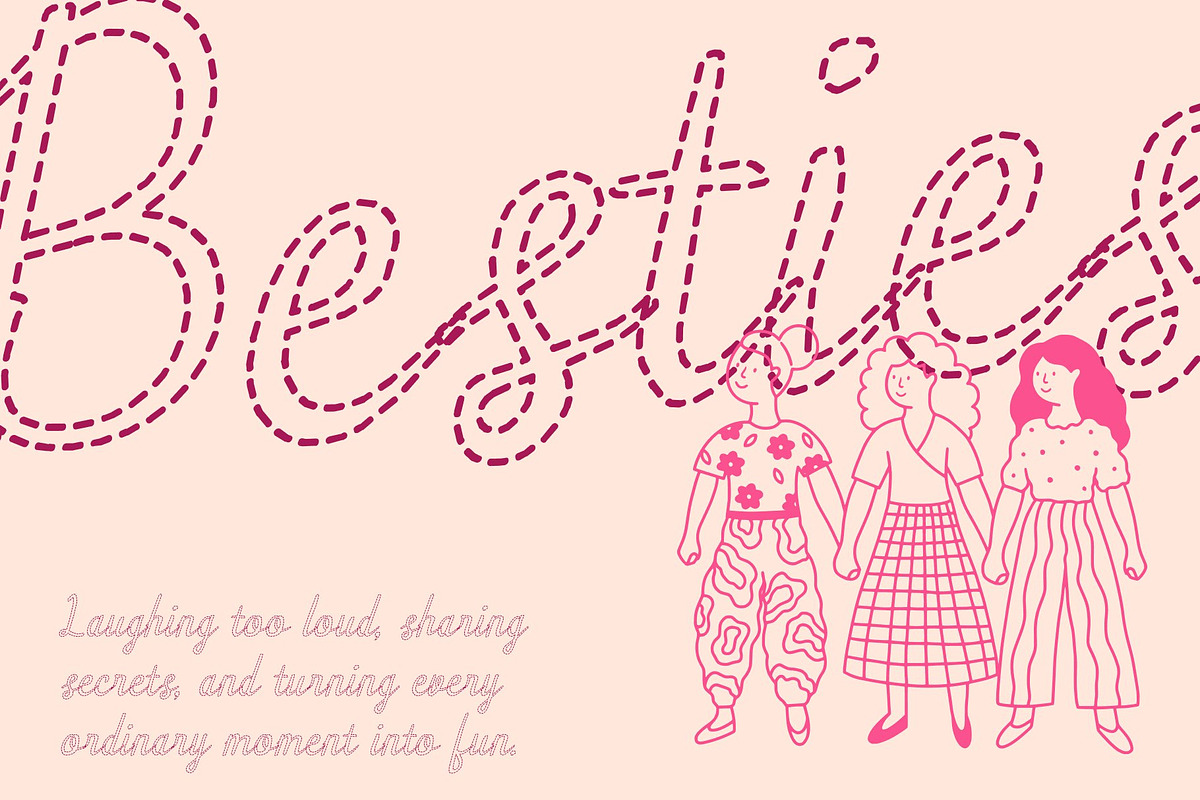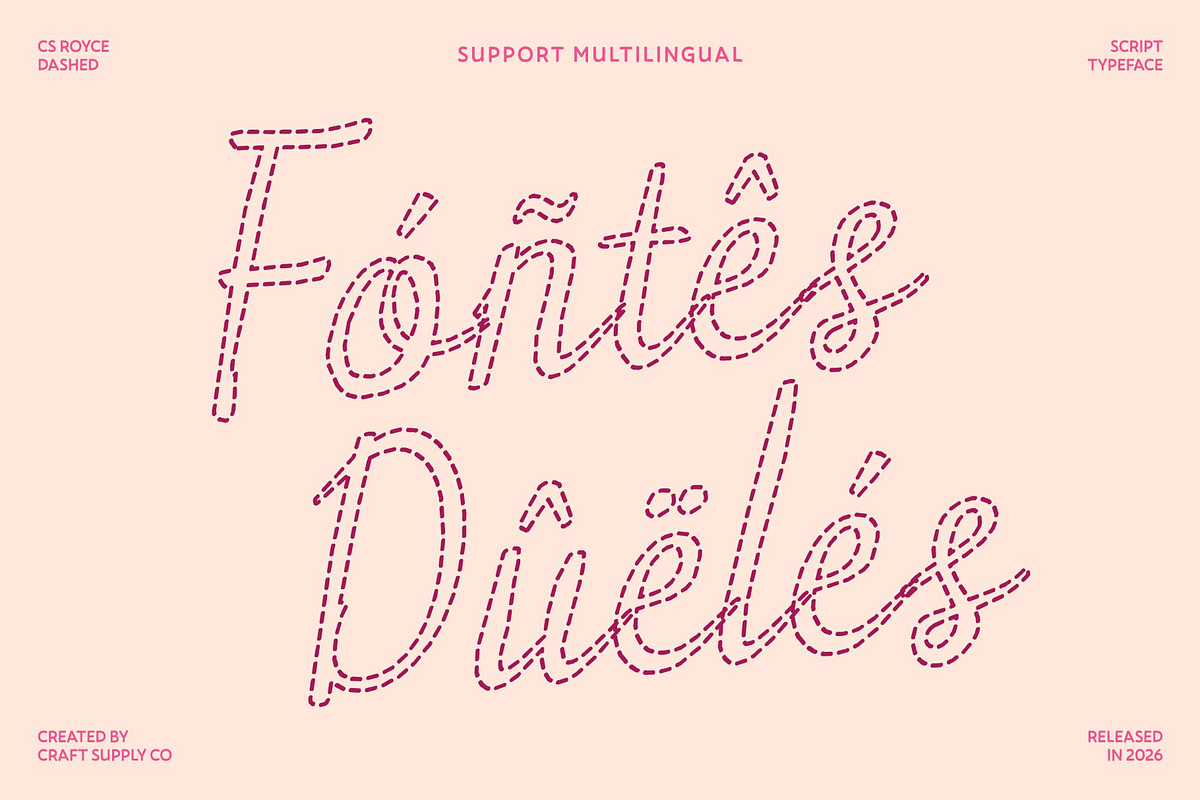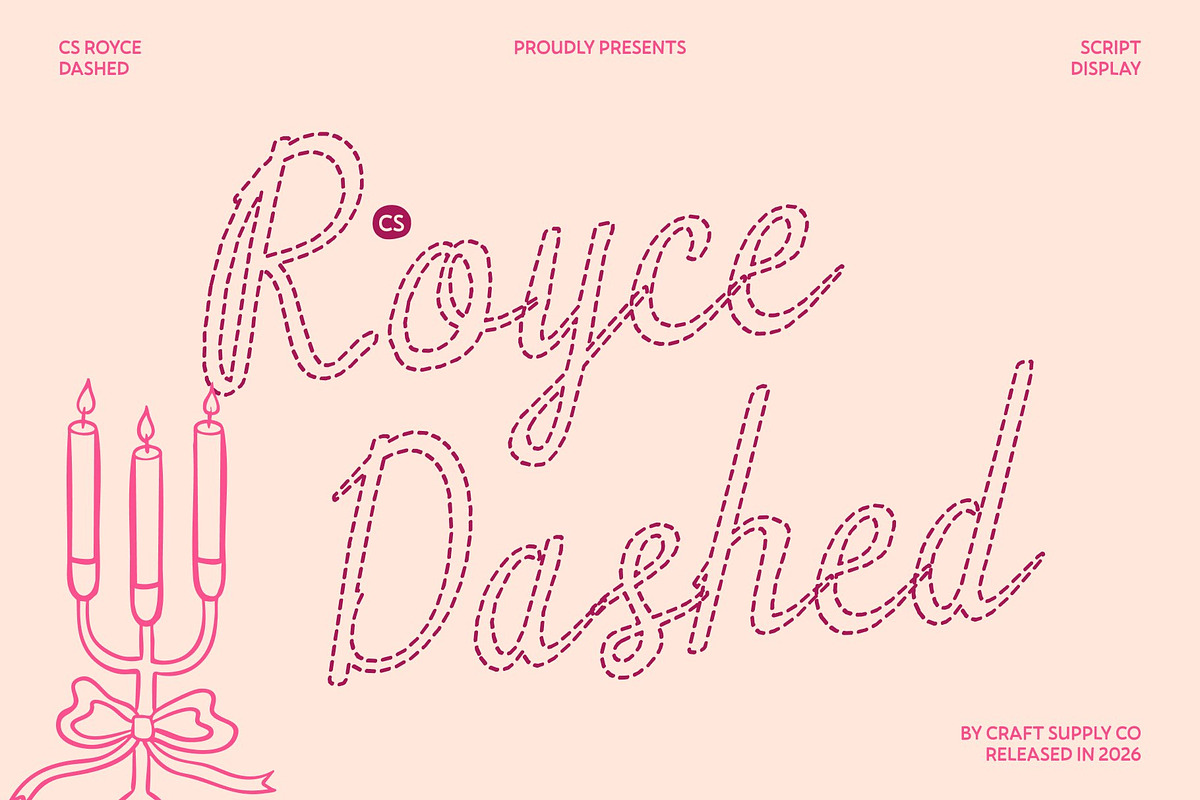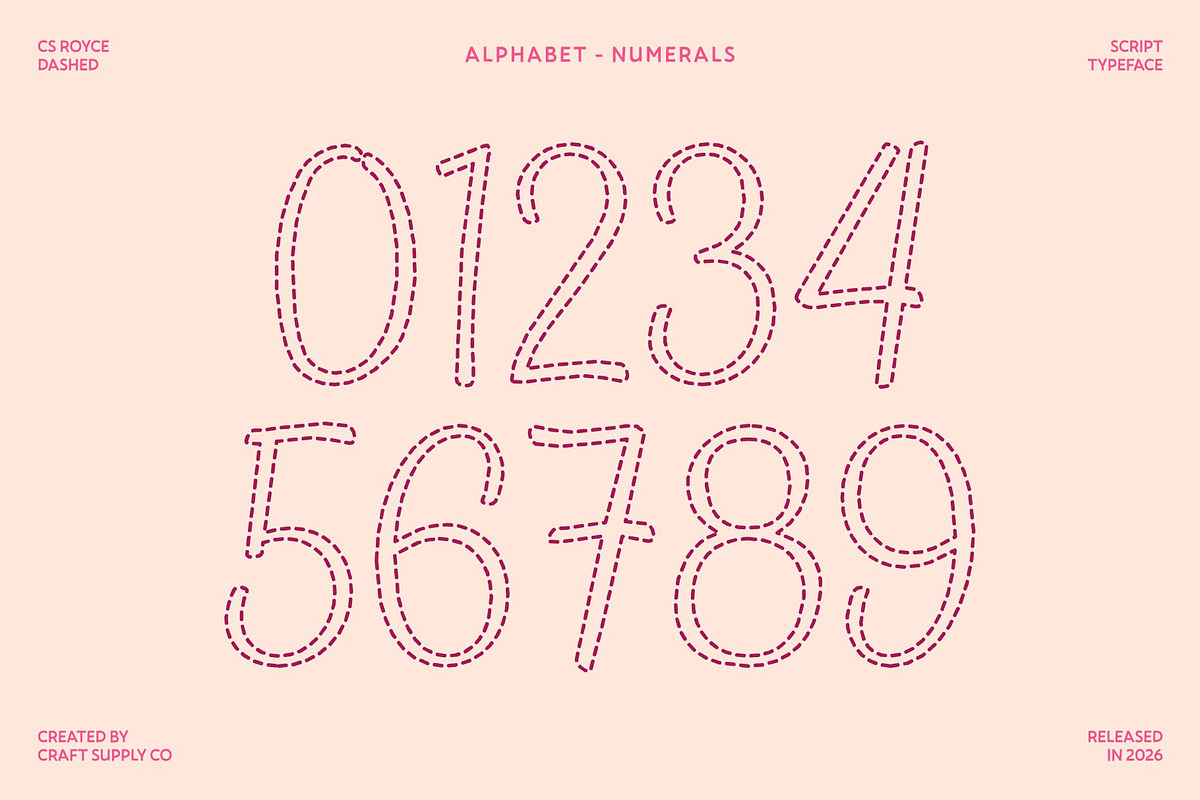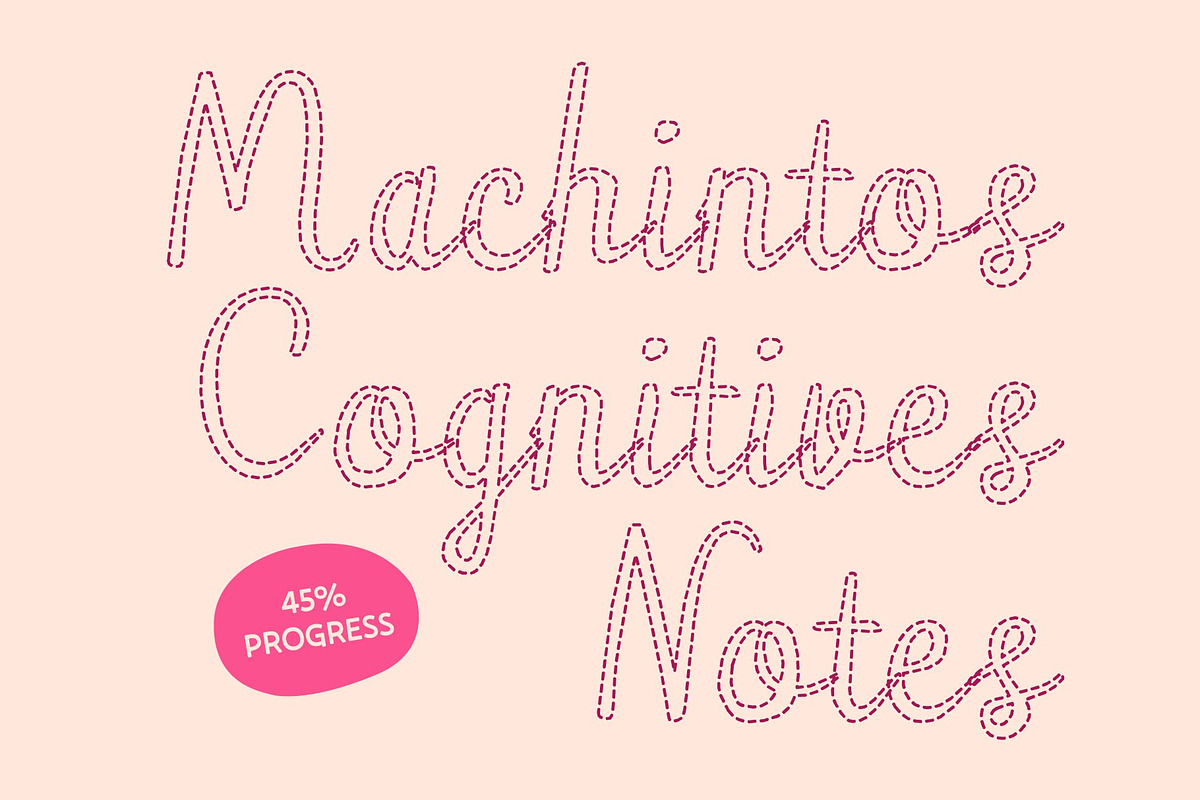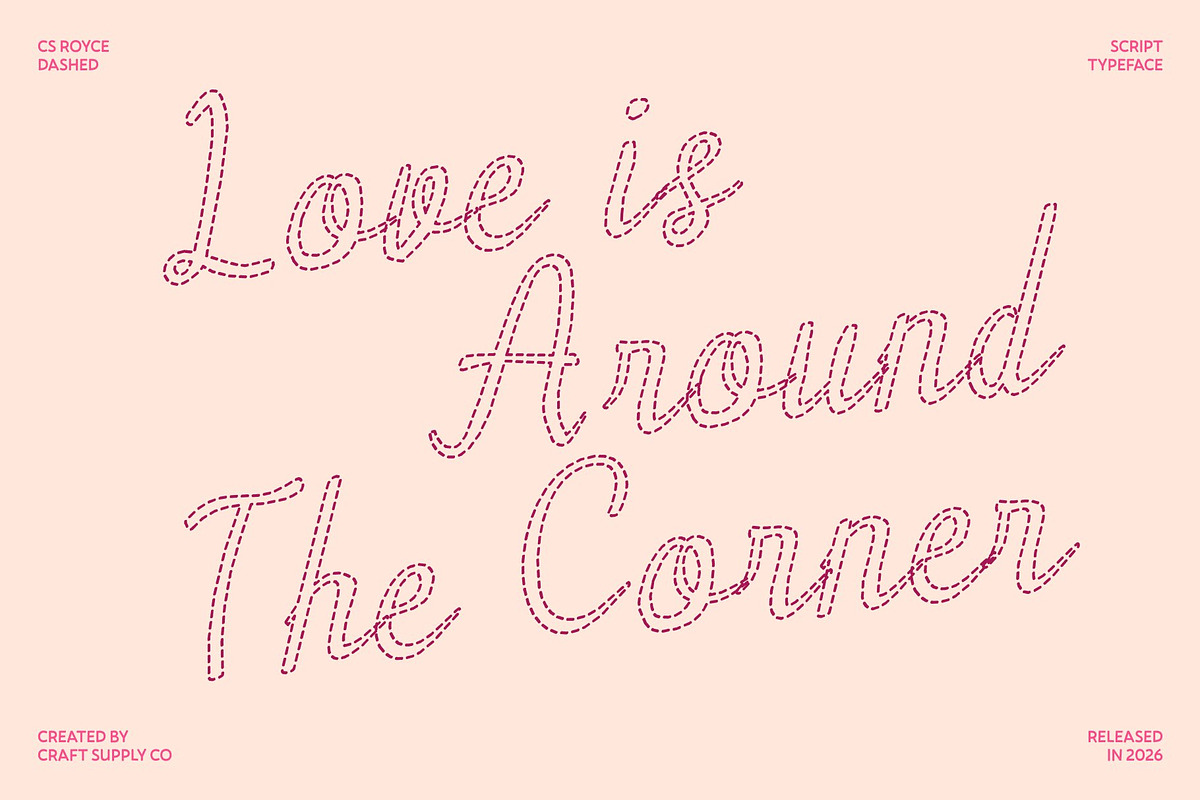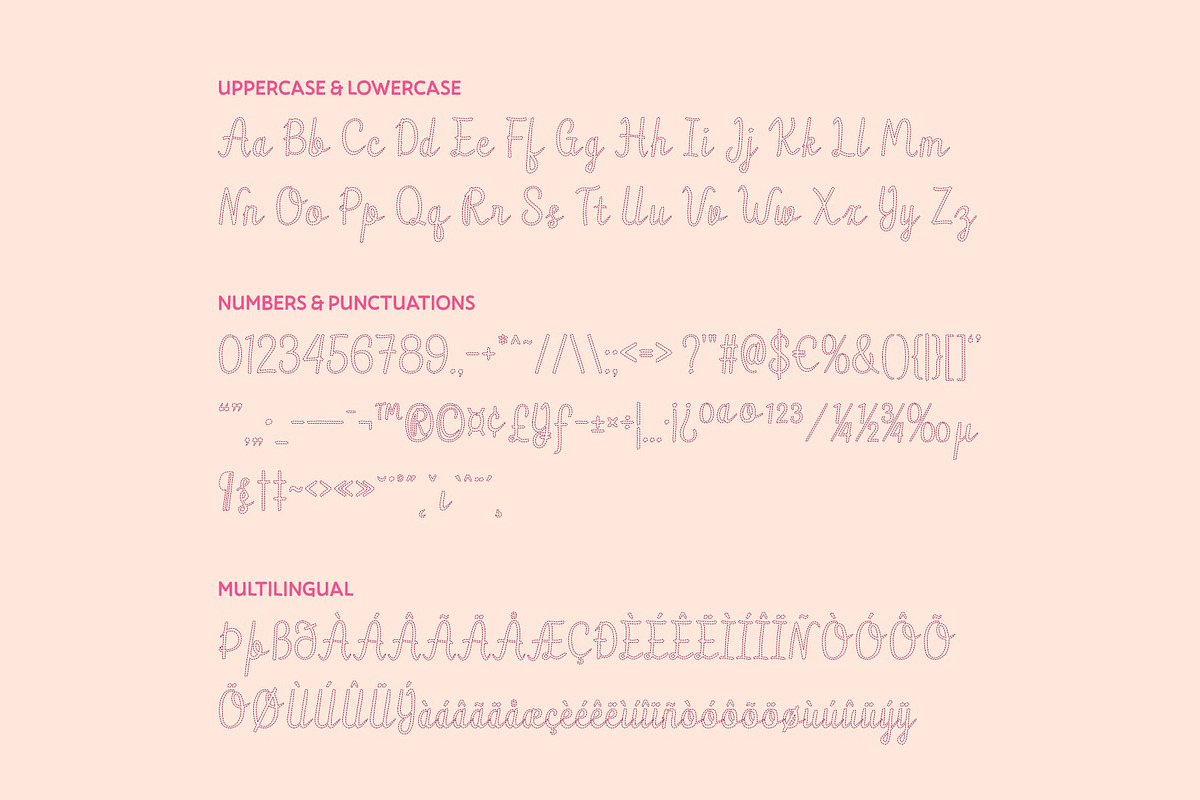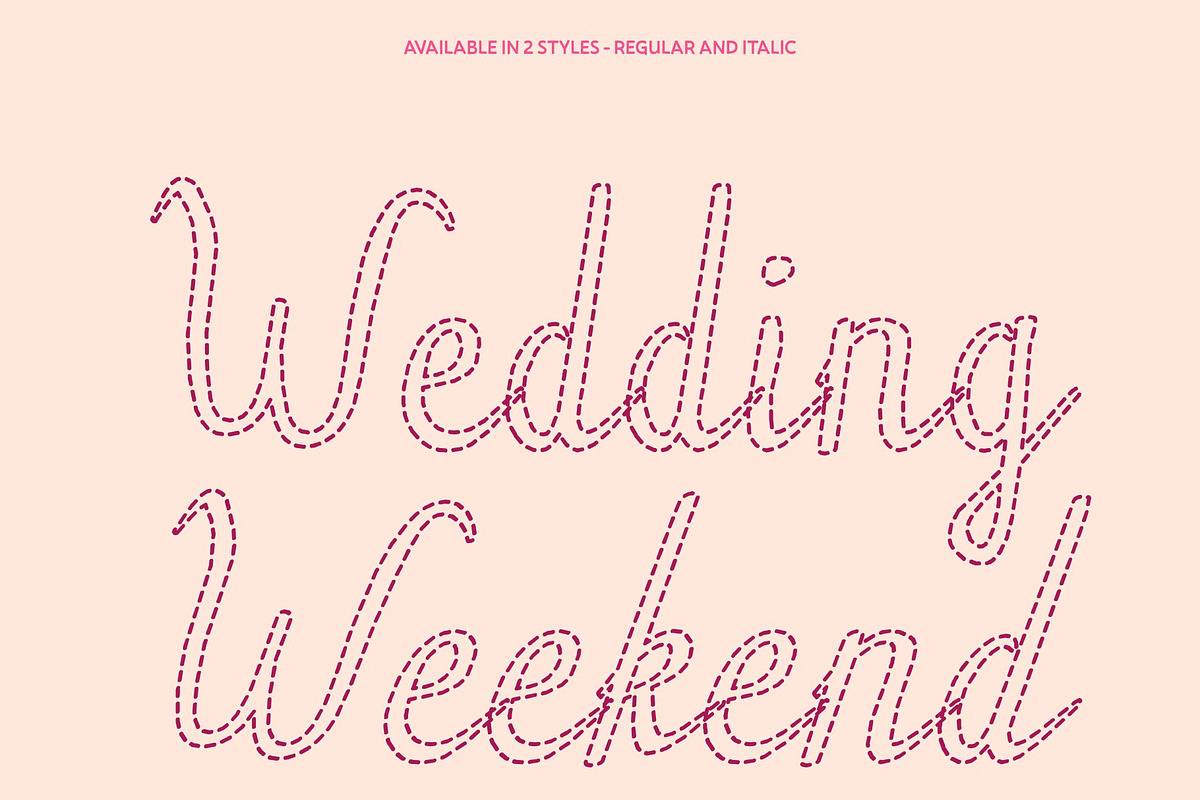
CS Royce Dashed
CS Royce Dashed – Elegant Script Font
Graceful, Modern, and Refined This is a modern script font that blends contemporary clarity with a flowing handwritten style. Its dashed stroke treatment introduces a light, artistic texture that softens the script’s elegance while adding a playful handcrafted character. The result is a typeface that feels polished, airy, and stylishly modern.
Smooth Curves with a Feminine Touch Each letter is carefully shaped with graceful curves and fluid motion, creating a sense of intimacy and gentle beauty. The dashed detailing enhances the handwritten feel, giving the font a warm and personal expression while maintaining excellent readability and balance.
Perfect for Stylish Branding and Editorials Ideal for wedding invitations, beauty packaging, fashion logos, and lifestyle editorials, this font brings sophistication and charm to every composition. It works beautifully in headlines, logos, and delicate accent text where elegance and personality are essential.
Elegant Script for Today’s Designs More than a script, this font is a statement of modern refinement and softness. Its combination of flowing elegance and dashed texture makes it perfect for designers seeking a graceful, feminine typeface that feels fresh, stylish, and effortlessly chic.
CS Royce Dashed Regular
CS Royce Dashed Italic